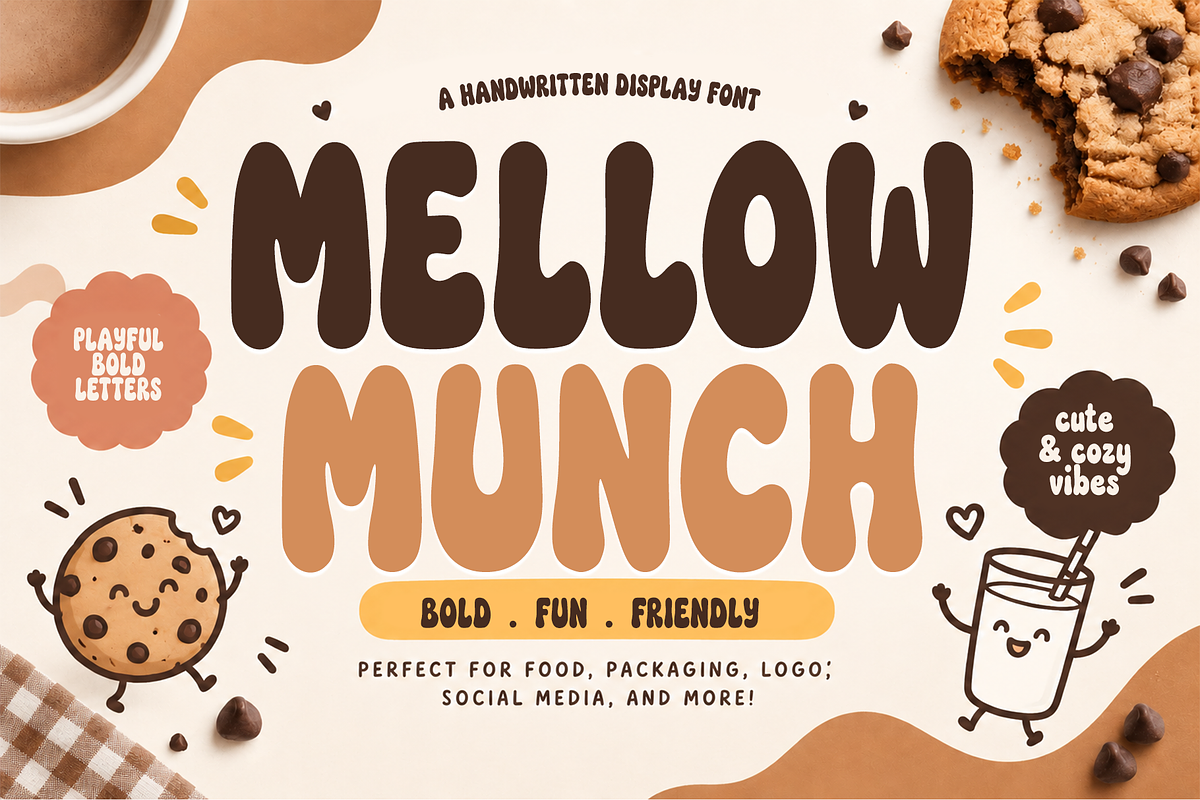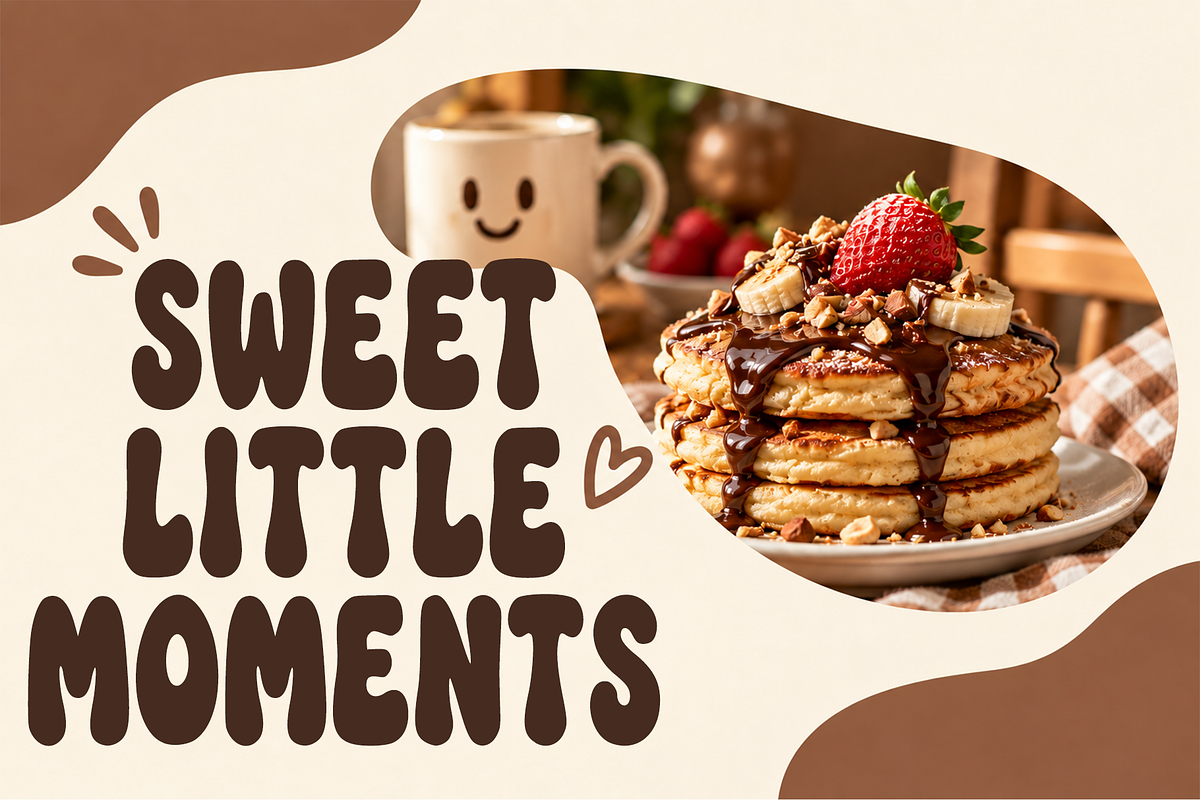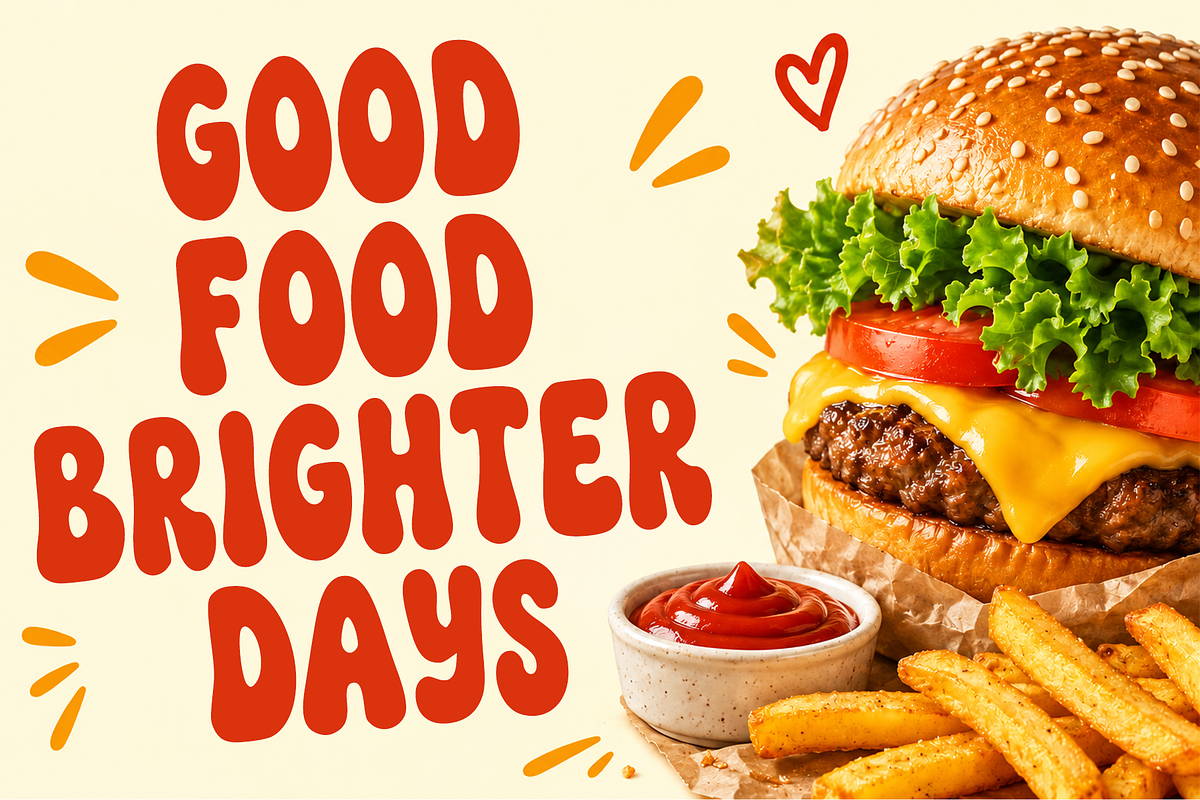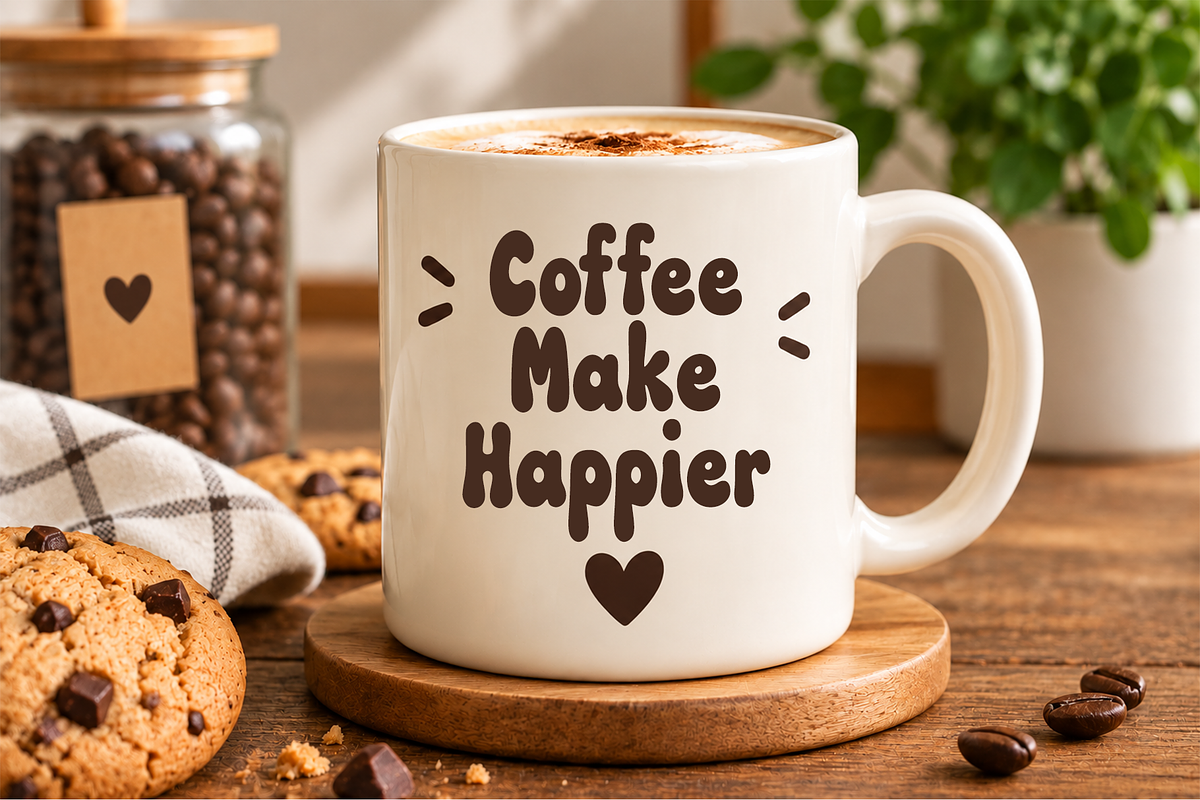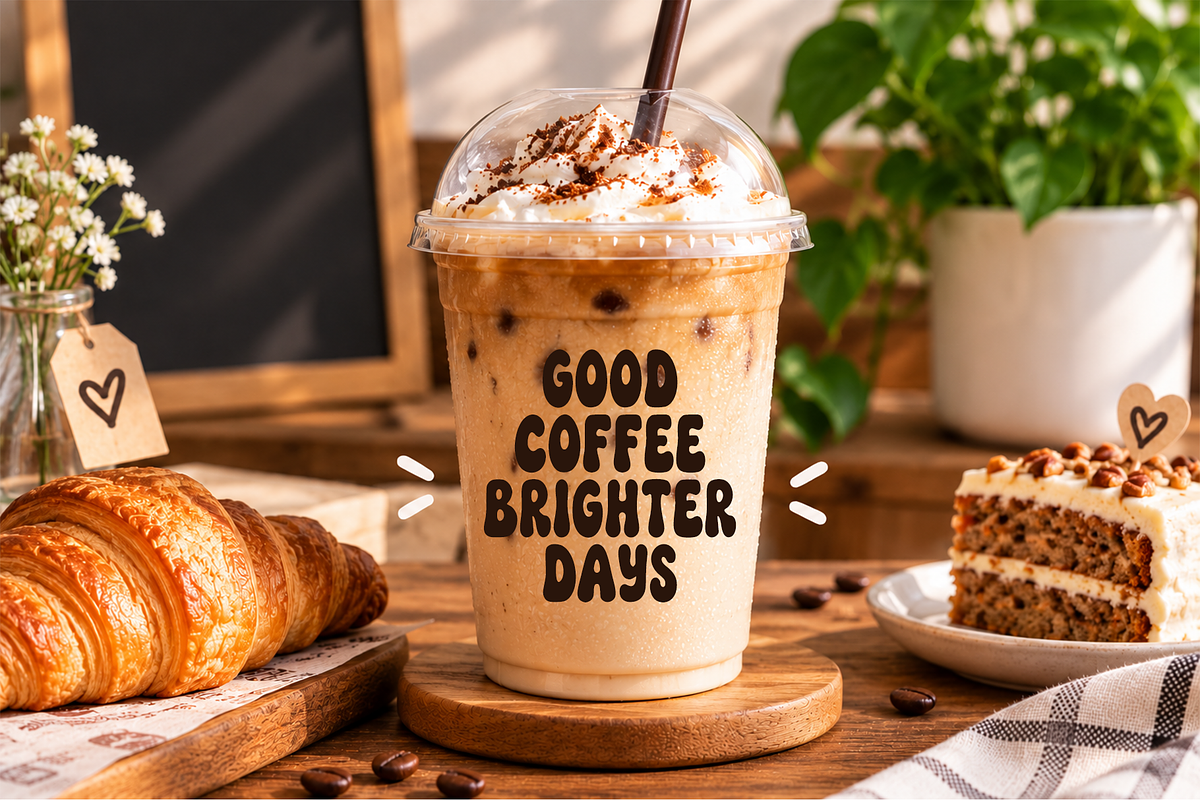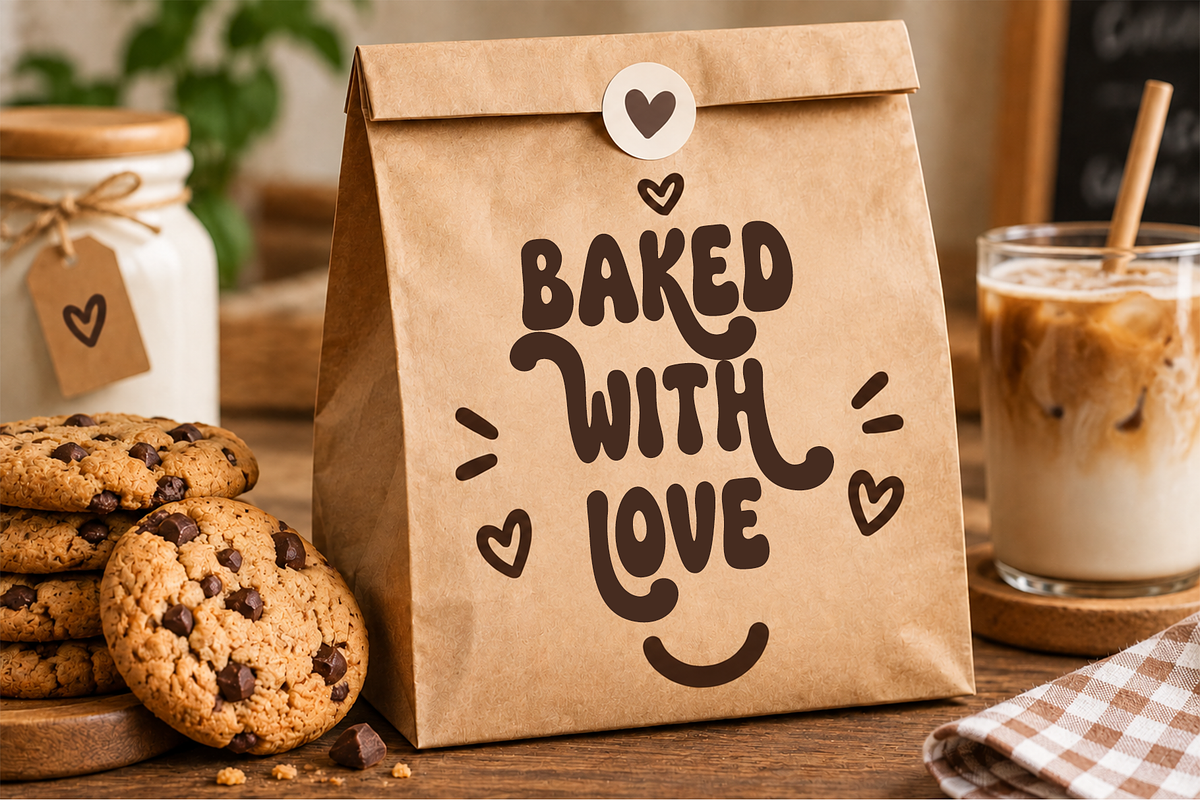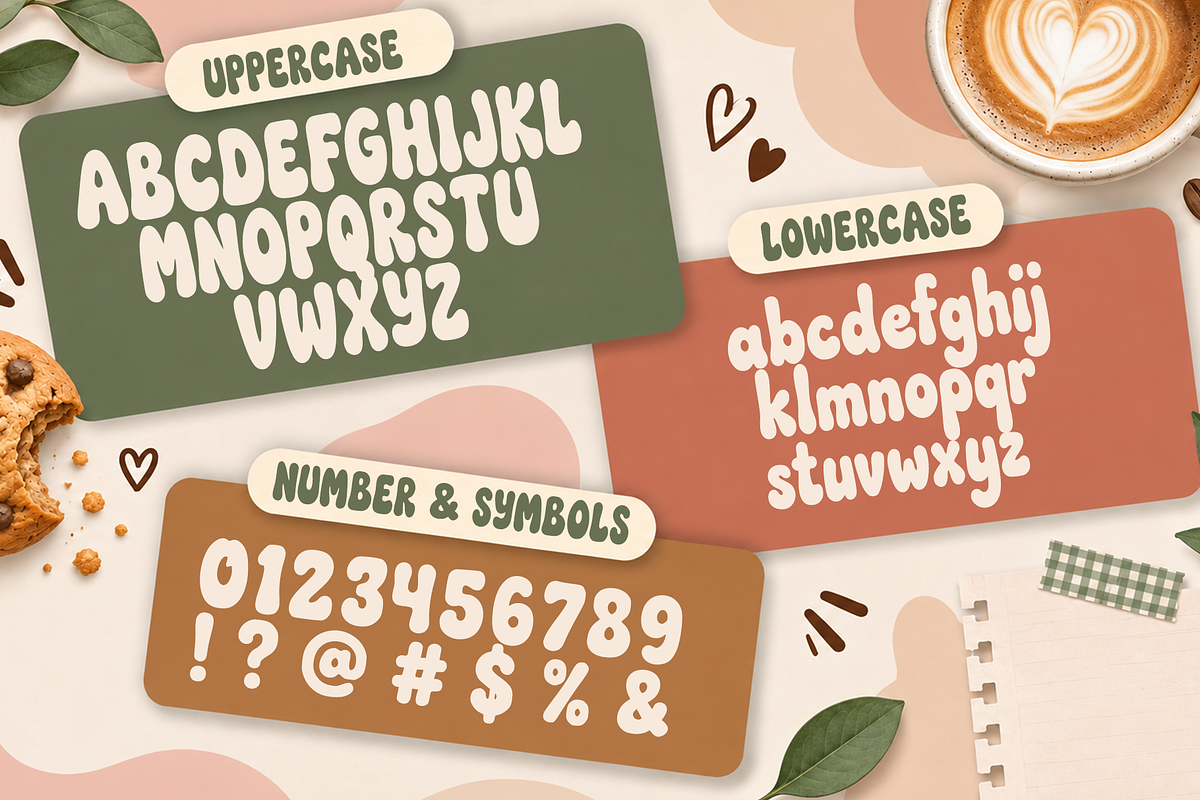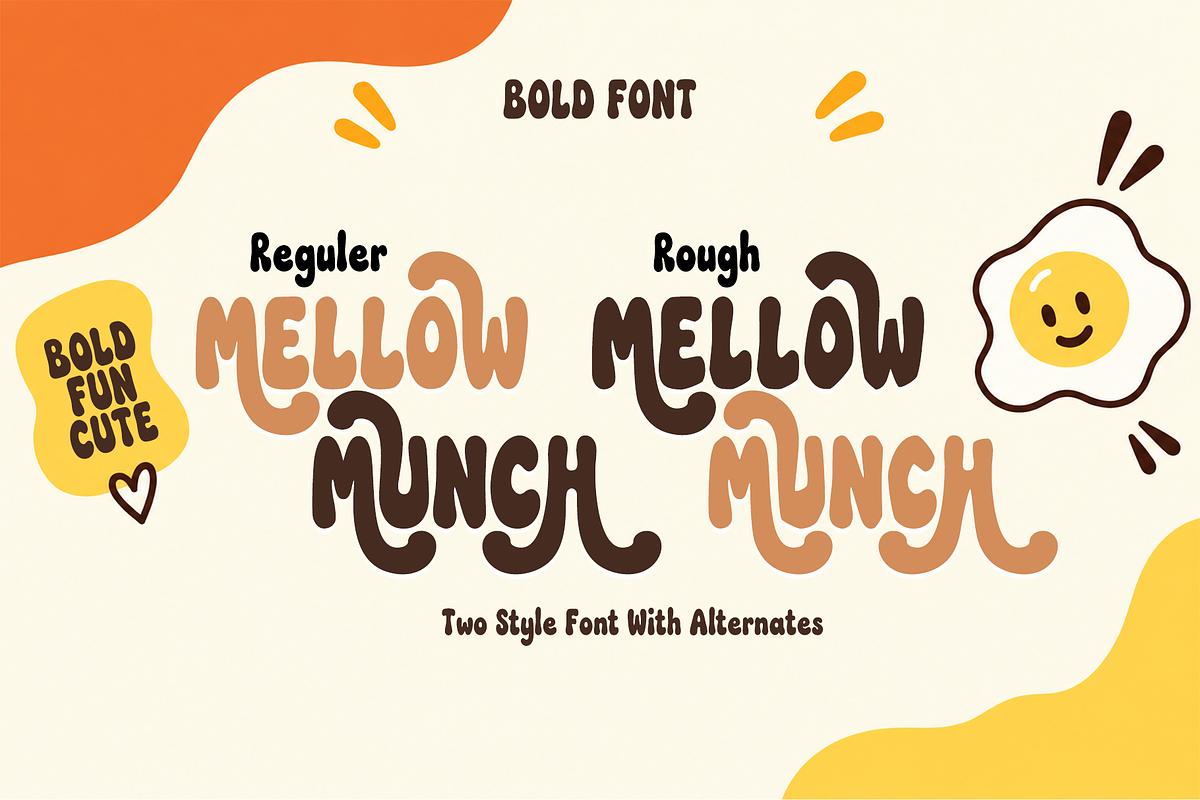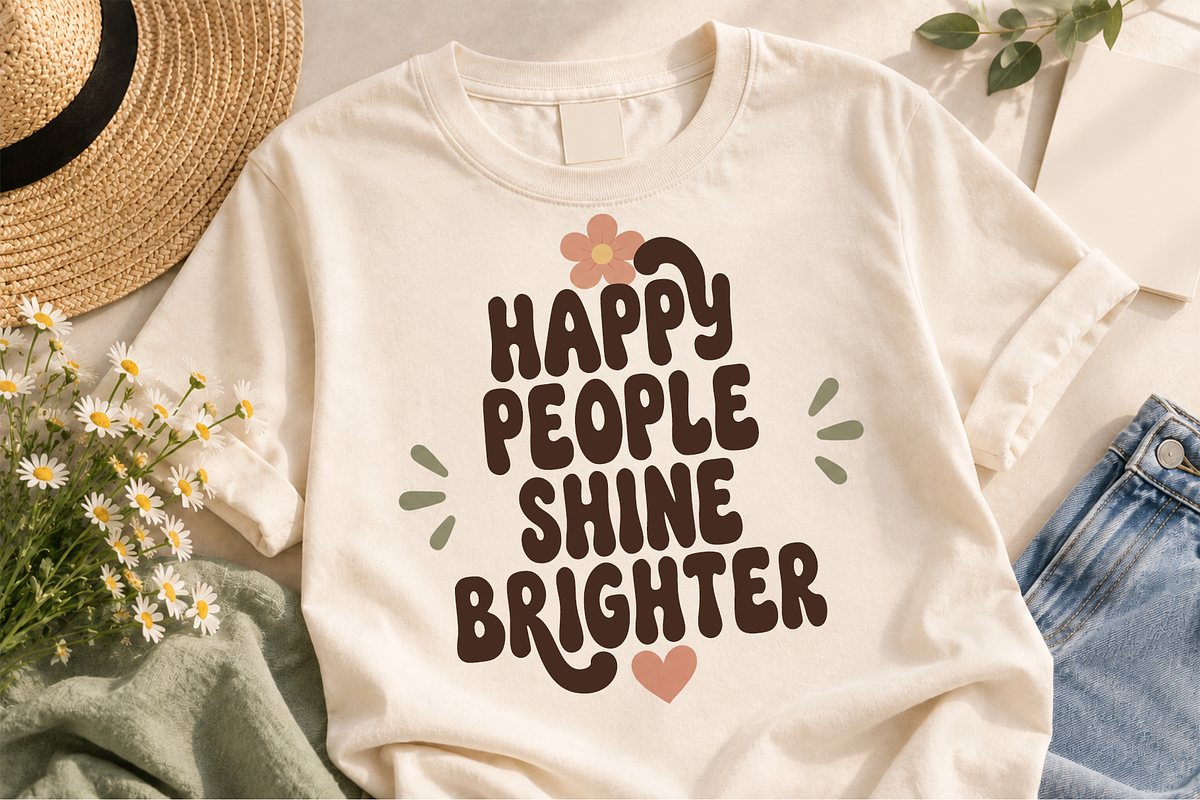
MELLOW MUNCH
MELLOW MUNCH is a playful and chunky handwritten display font designed to bring a warm, fun, and friendly personality to your designs. With its bold rounded shapes, organic curves, and charming hand-drawn feel, this font is perfect for projects that need a cute and approachable touch.
Its soft, bubbly letterforms make it especially suitable for food branding, packaging, café designs, logos, children’s products, labels, stickers, social media graphics, posters, apparel, and more.
Whether you're creating a cozy bakery identity, a playful food label, a fun kids' project, or eye-catching social media artwork, MELLOW MUNCH is made to stand out while keeping things cheerful and inviting.